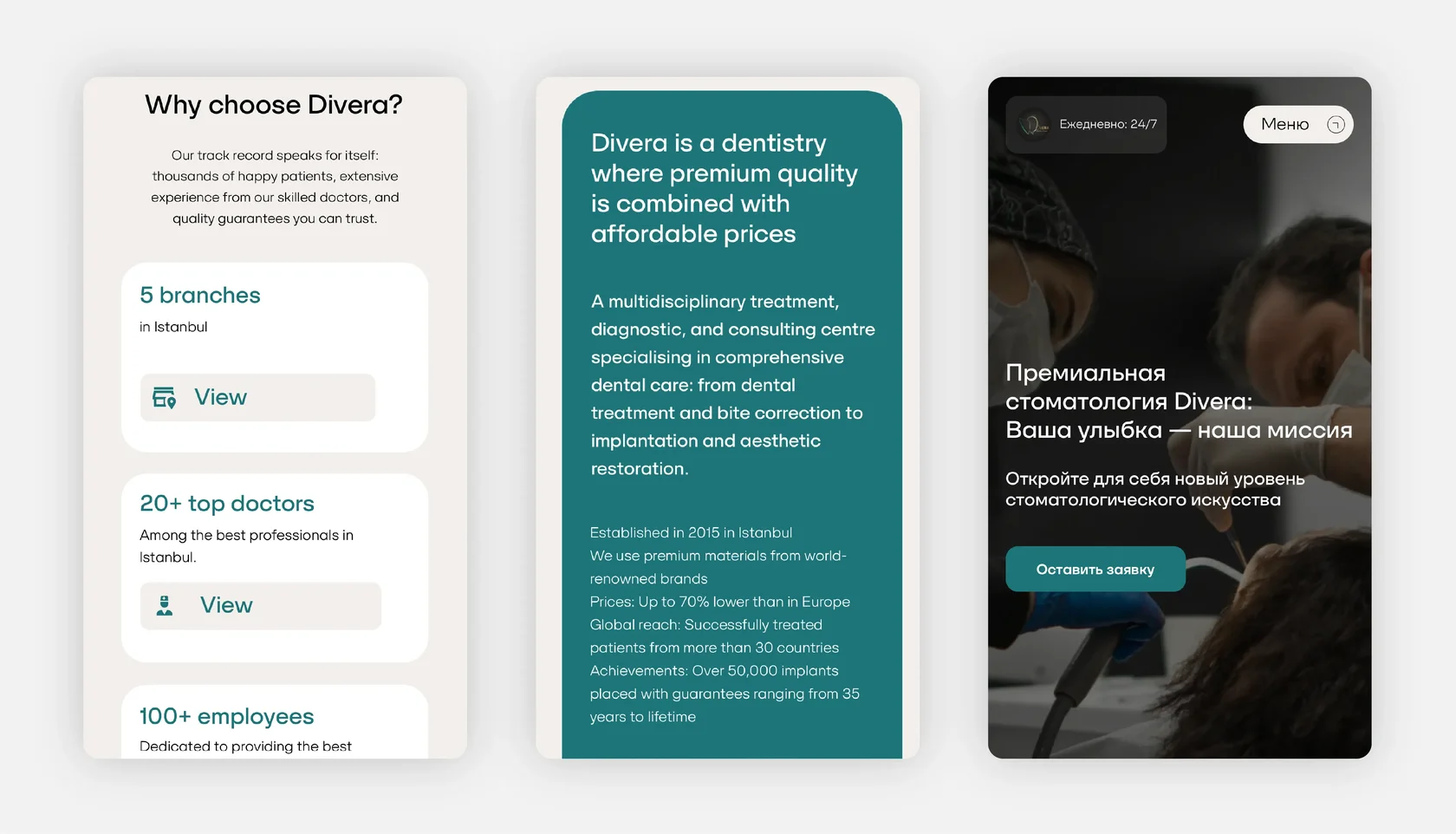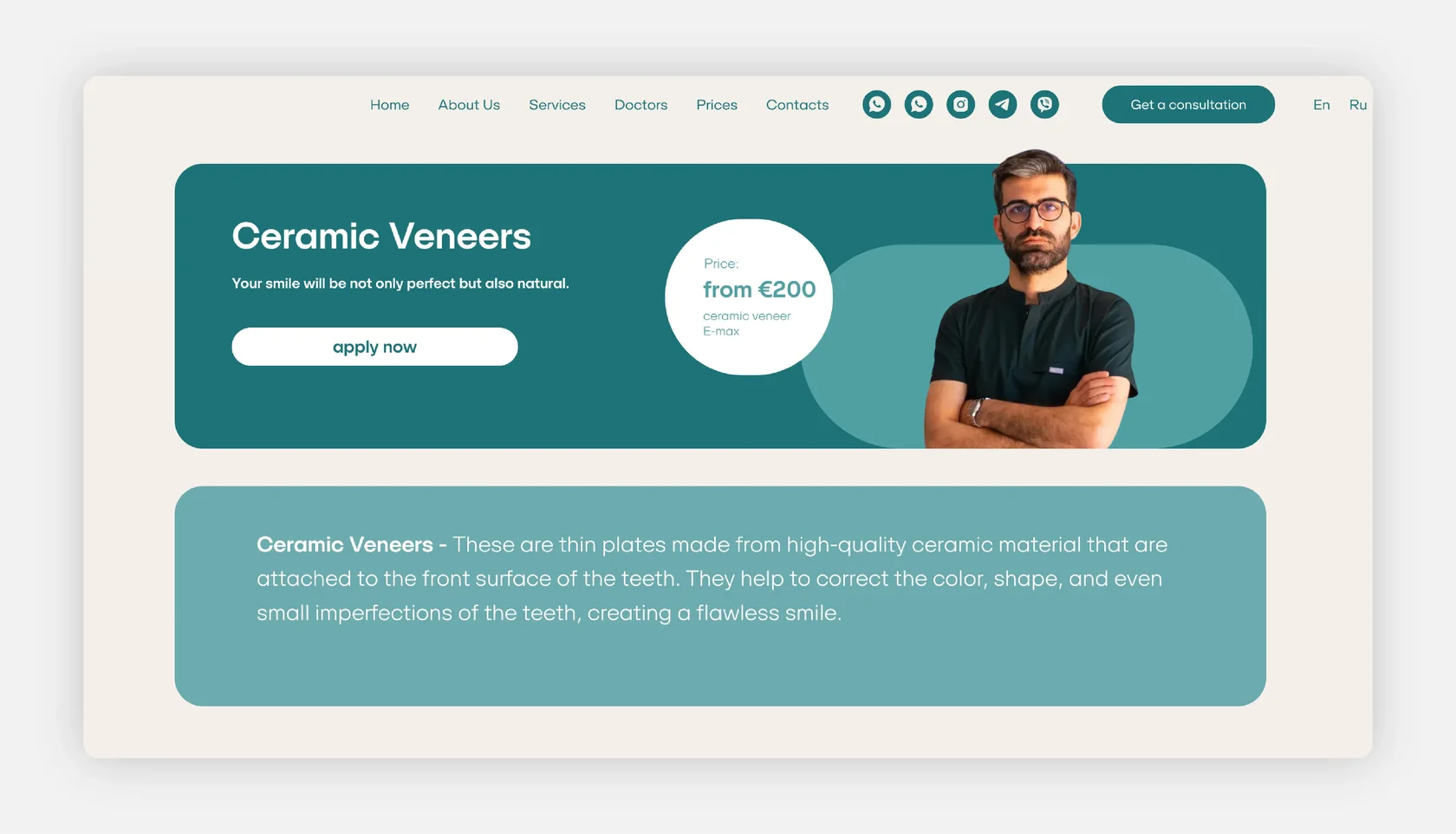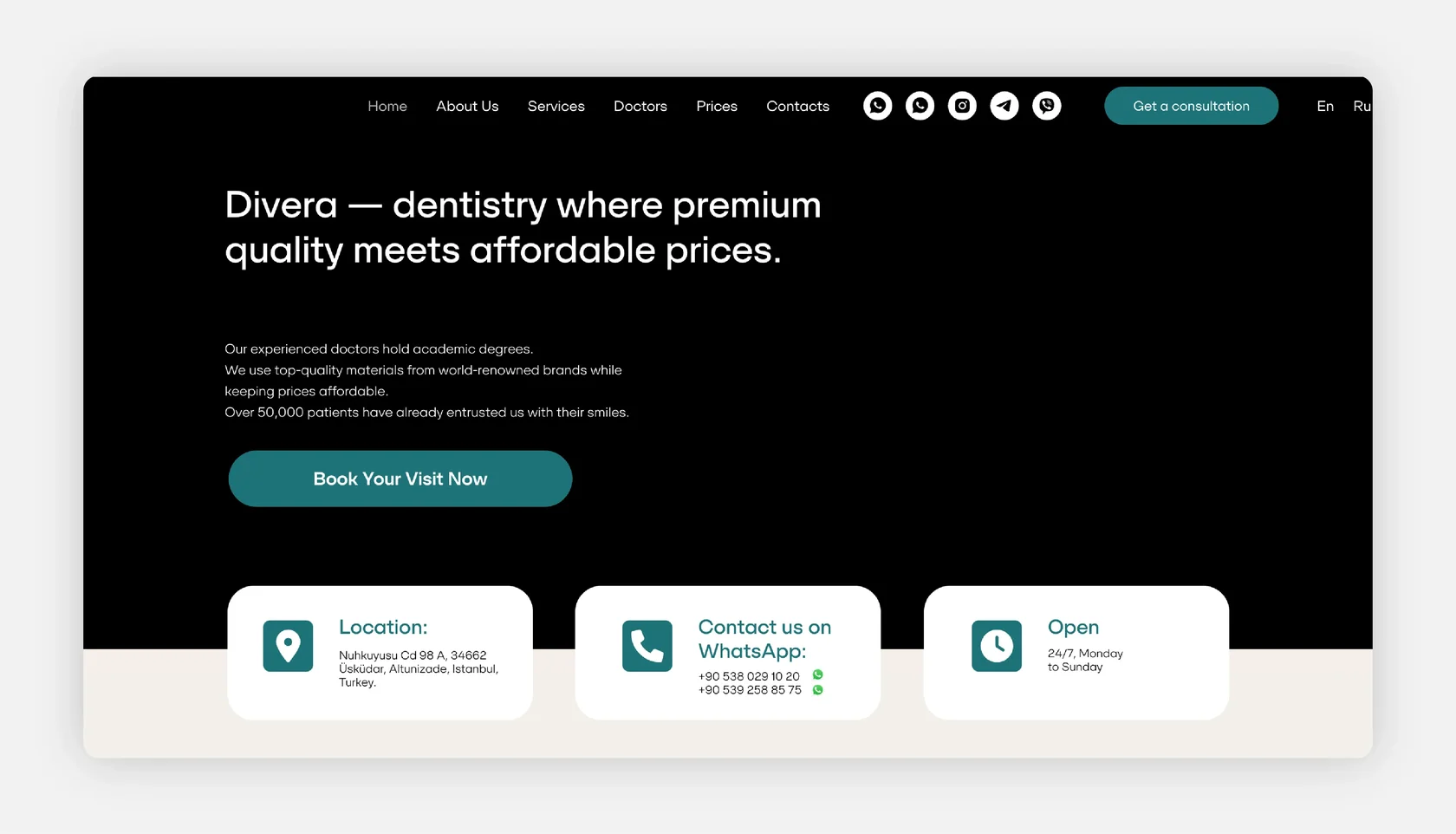
Divera — International Dental Clinic
Font: SFT Schrifted Sans (Light, Regular, Medium, DemiBold).
Use case: Multilingual website design.
About the Project:
DiveraDent is a Turkey-based dental clinic serving patients from over 30 countries, offering premium dental procedures at competitive prices. The website combines English and Russian content to reflect its international reach and patient-centric service.
Why SFT Schrifted Sans?
SFT Schrifted Sans was chosen for its robust Latin and Cyrillic coverage, allowing DiveraDent to maintain typographic consistency across languages. Its clear, geometric forms support readability in diverse scripts, reinforcing the clinic’s global identity and accessible professionalism.